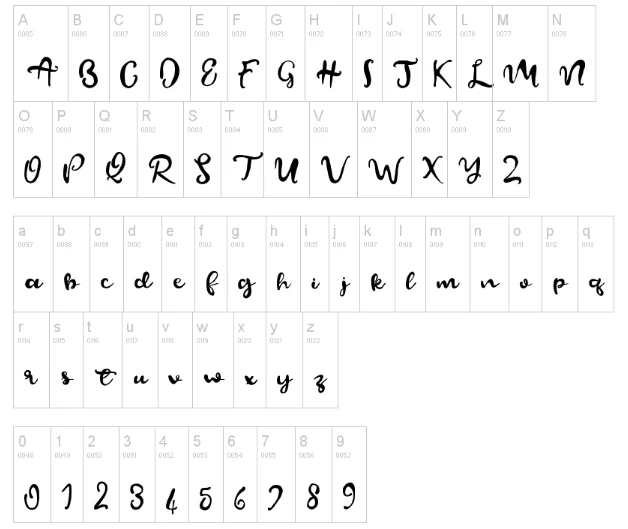
Beautify Script Font-Download Free
Beautify is a gorgeous handwritten and flowing script font. Yasir Ekinci created and shared the font. It comes with a full character set and some international characters and alternatives to help you create unique typographic works. The Beautify Script font subfamily is Regular. Another great advantage is that the font is compatible with Windows, Apple/Mac OS X, Linux, Cricut, Silhouette, and other cutting machines.
The typeface looks amazing in any natural context and may be used anywhere that has a natural setting. The font is a great choice for putting on your cup or bottle, and you may personalize it to your liking. You may also use this lovely font to create your own notebook cover.
Beautify Script Font View
Beautify Script Font Character map
Beautify Script Font View